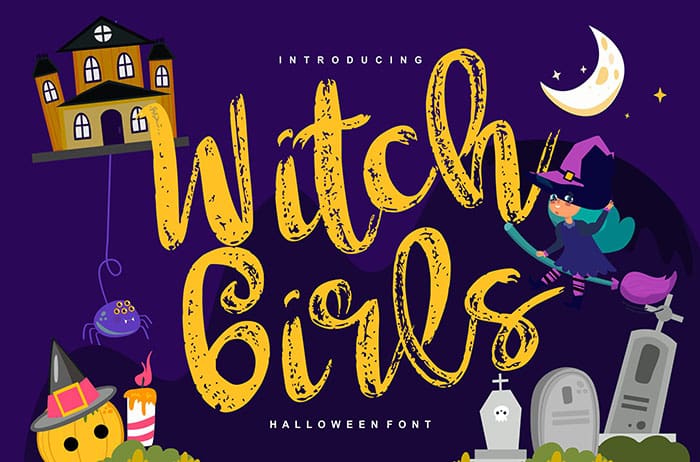
Witch Girls Decorative Font
Witch Girls Decorative Font is a Halloween inspired style. This font works great in any magazines, films, posters, flyers, signboards, magazines, etc. Fall in love with its spooky yet friendly charm! Thanks to Vunira for sharing this font. Take a look at this portfolio for more of his stunning fonts.